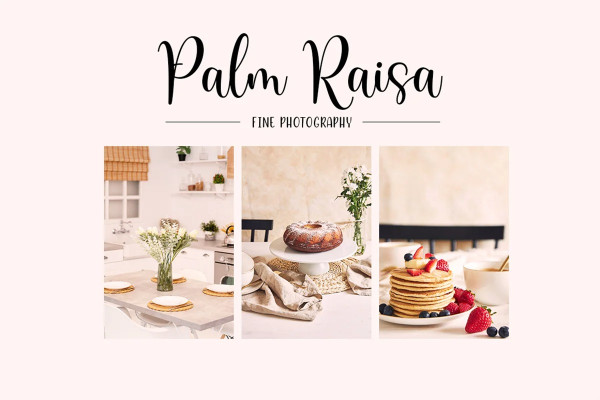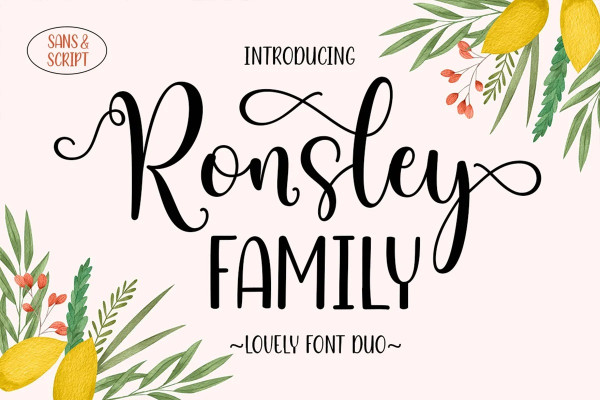
Ronsley Font
Ronsley Font Duo is a hand-drawn font with a modern look. This Ronsley Font Duo is perfect for any modern project including branding designs, logos, invitations, wedding decorations, website designs, instagram, business cards and more!